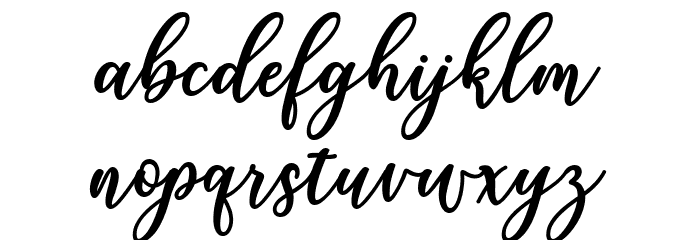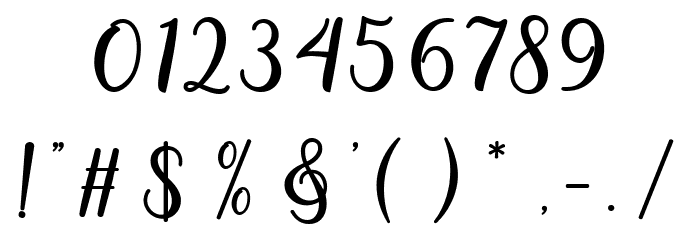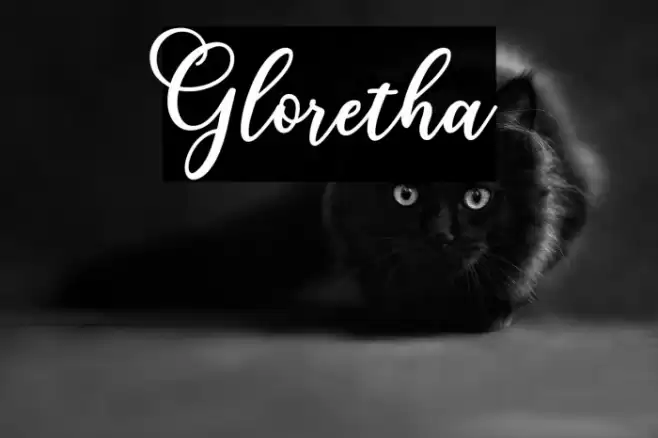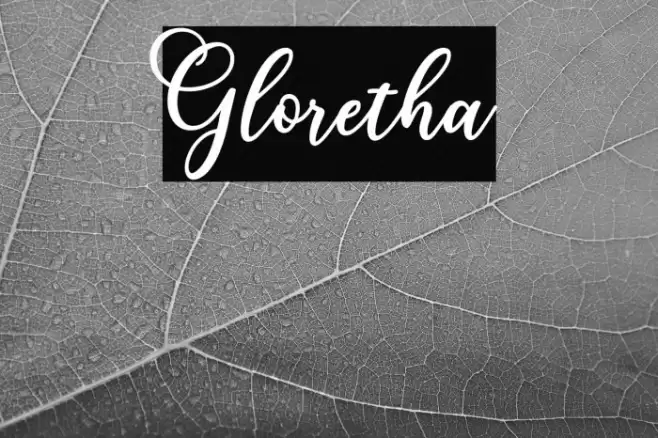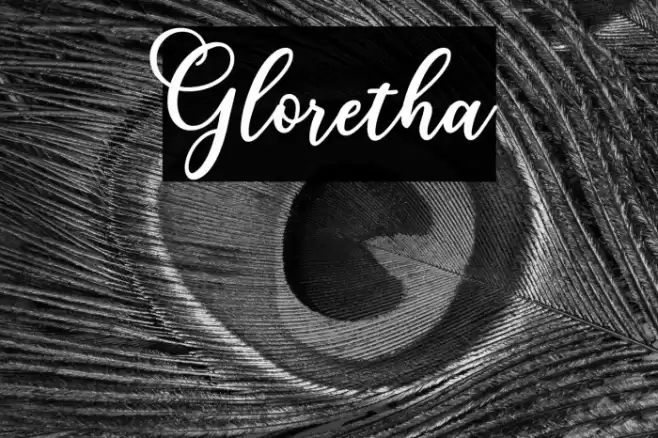
Gloretha Font
This font features an elegant and flowing script style, characterized by its ornate and decorative swirls. The uppercase letters are particularly elaborate, with intricate loops and flourishes that give a sense of sophistication and grace. The lowercase letters maintain a consistent flow, enhancing readability while still retaining a stylish flair. The numerals and special characters are designed to match the overall aesthetic, ensuring a cohesive look across all text. This font is ideal for projects that require a touch of elegance and formality.
An elegant script font with ornate swirls and decorative flourishes.
- Font: Gloretha
- Proposed Projects: Wedding invitations, luxury branding, greeting cards, and elegant packaging.
- Use Case: Logos, Invitations, Decorative text